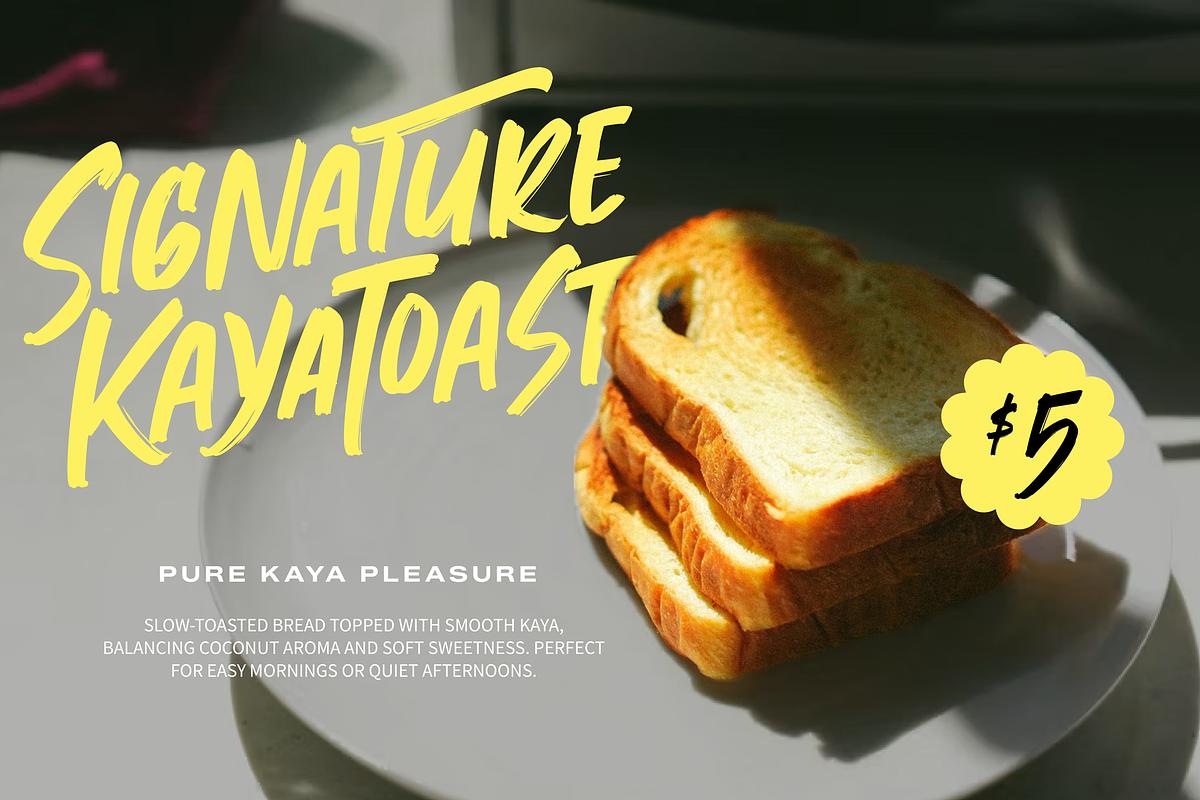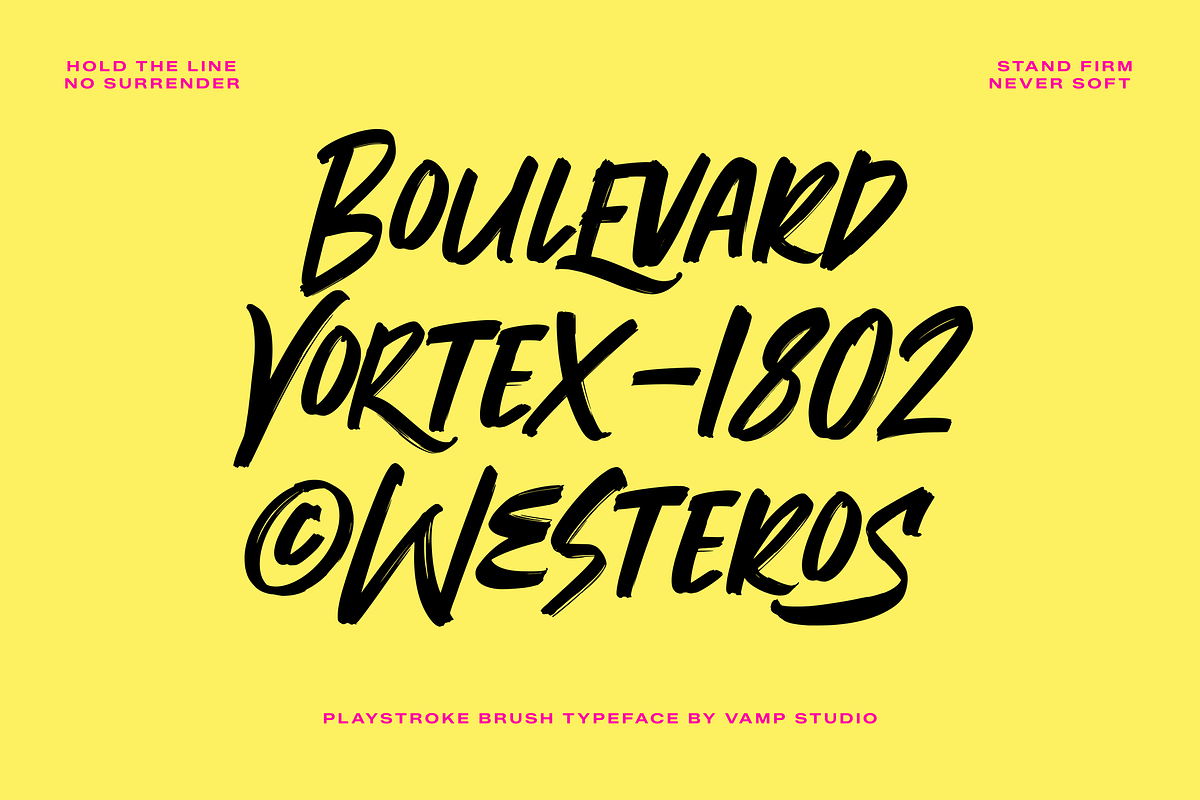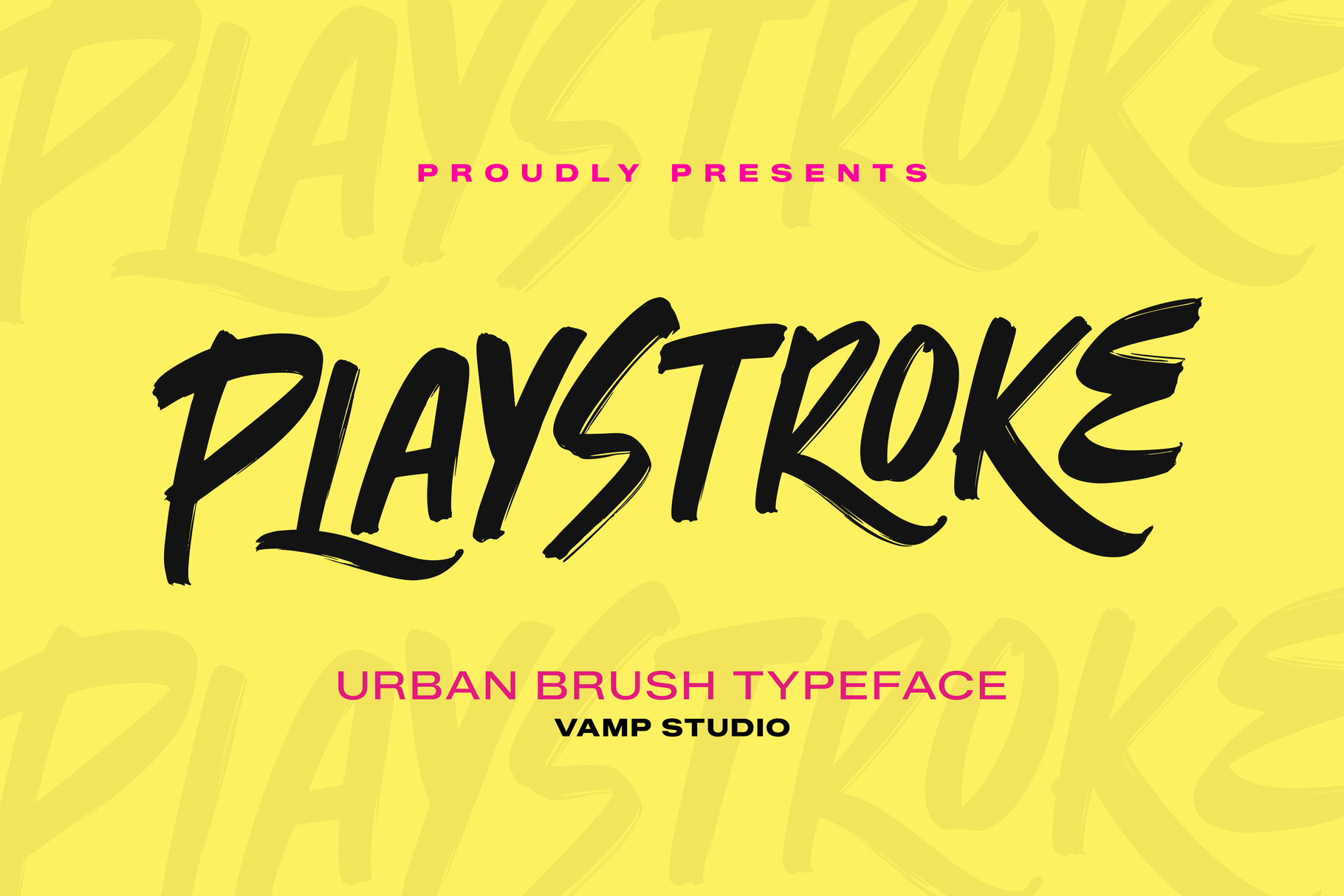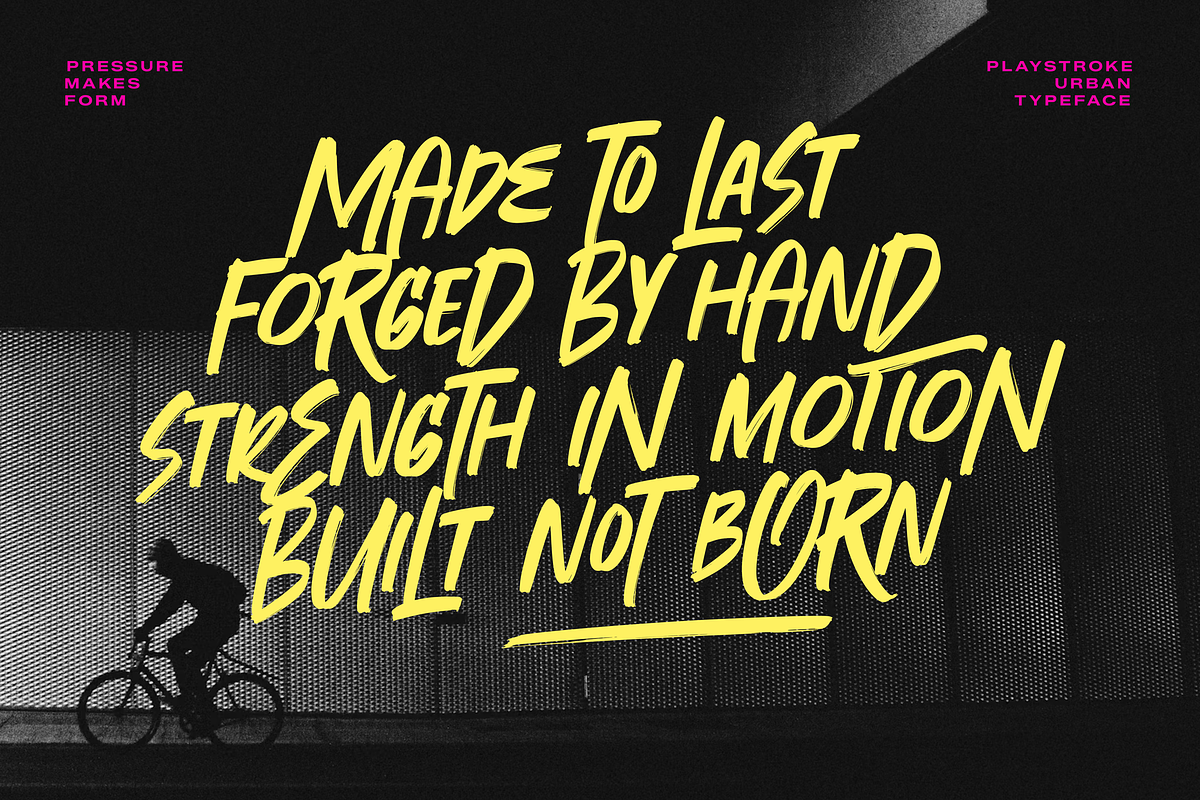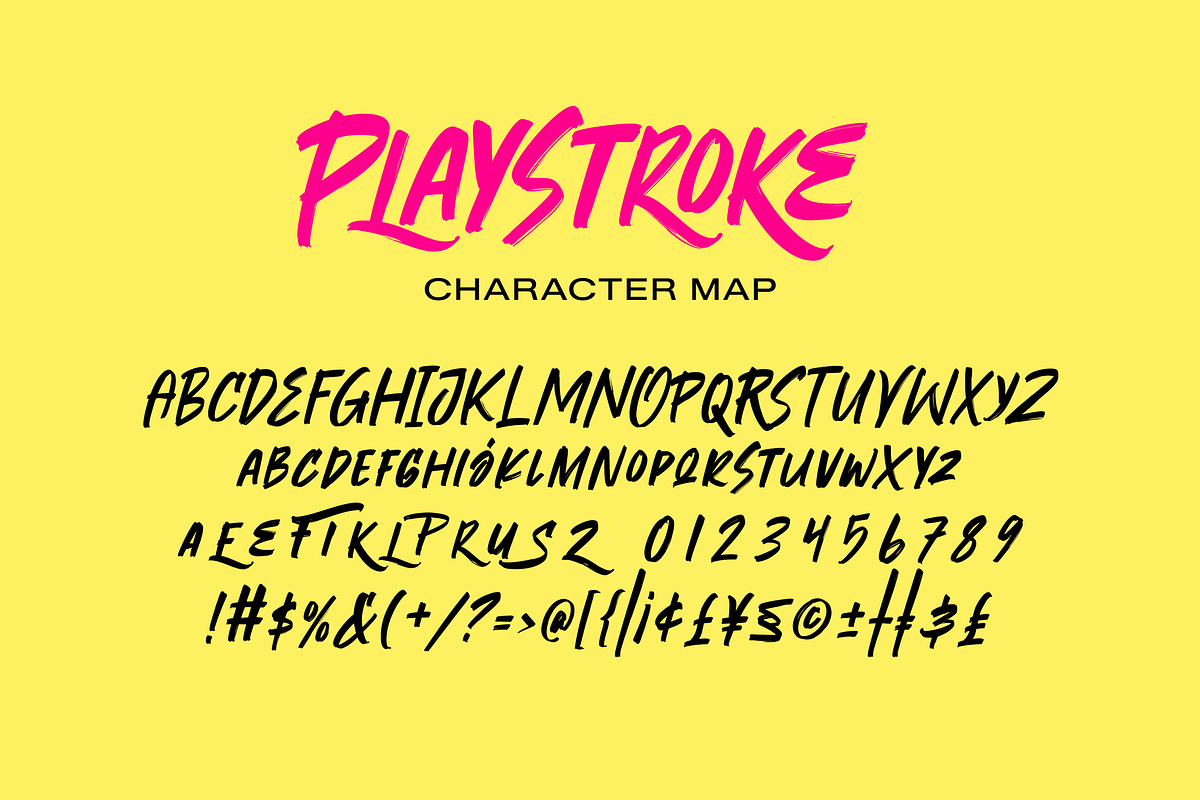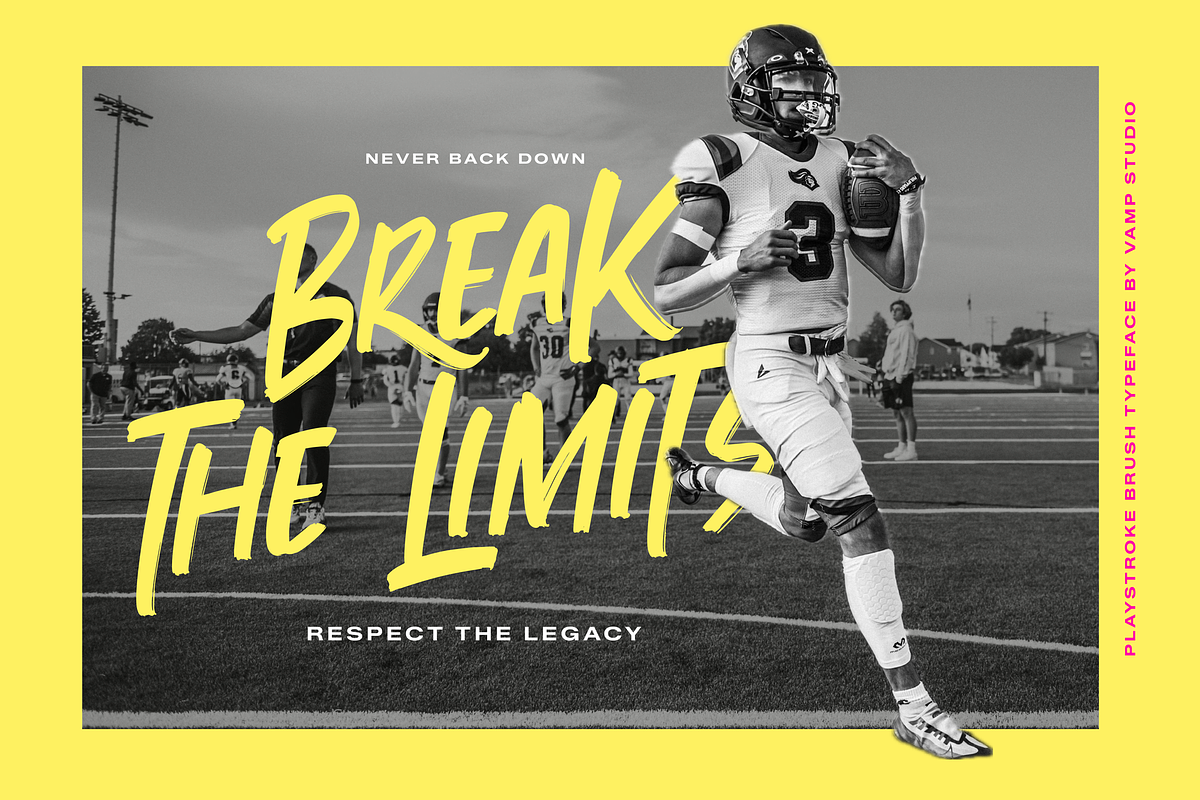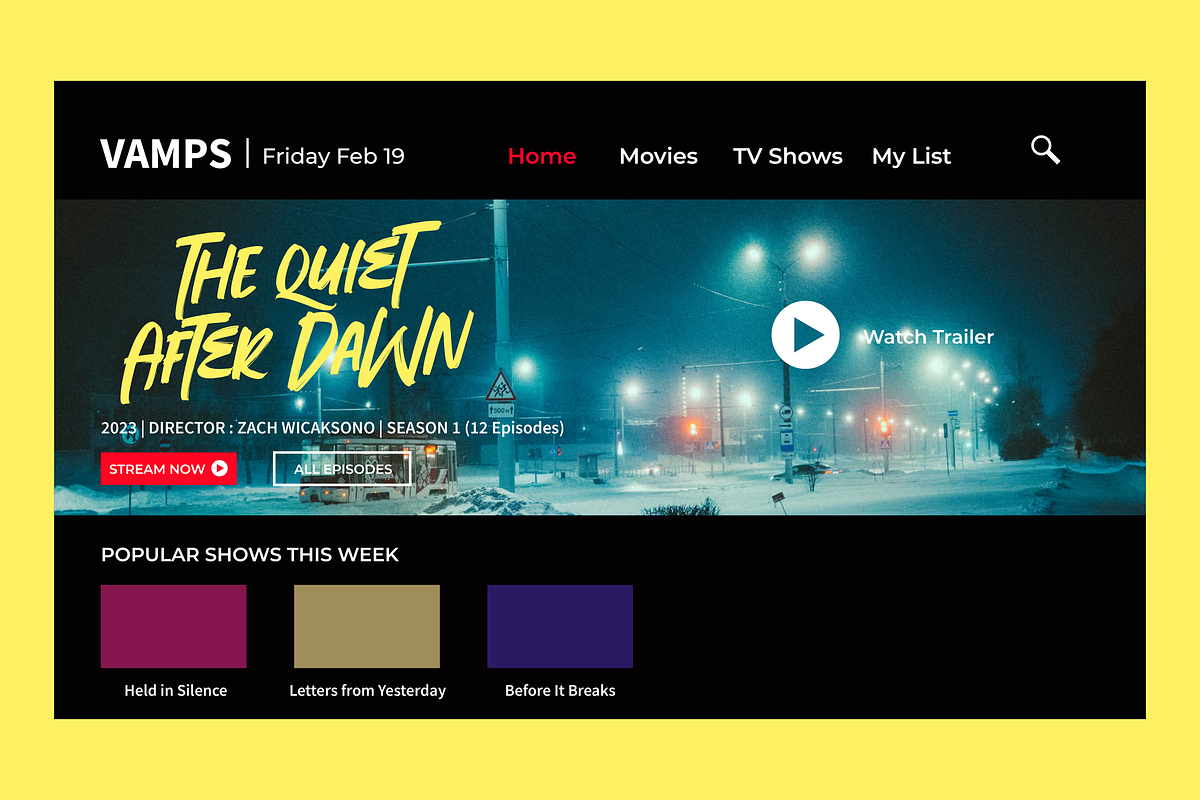
Playstroke – Urban Brush Font
Playstroke is an expressive urban brush display font inspired by street culture, sports energy, graffiti aesthetics, and hand-painted lettering. Featuring rough textured strokes, dynamic movement, and bold handcrafted character, Playstroke is designed to create strong visual impact across modern creative projects.
Perfect for sports branding, streetwear labels, music posters, YouTube thumbnails, urban advertising, album covers, skate culture graphics, merchandise, and bold social media content. Its raw brush style delivers authentic personality and energetic typography that stands out instantly.
Playstroke combines aggressive brush movement with excellent readability, making it ideal for both large headlines and impactful branding visuals.
Urban brush display style
Hand-painted textured strokes
Uppercase & lowercase characters
Energetic street-style typography
Numbers & punctuation included
Great for posters & apparel
Perfect for sports & music branding